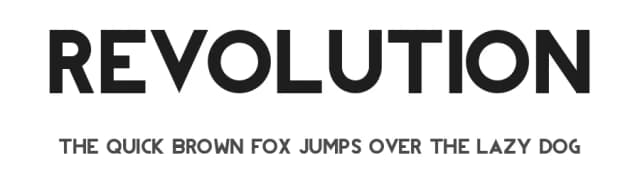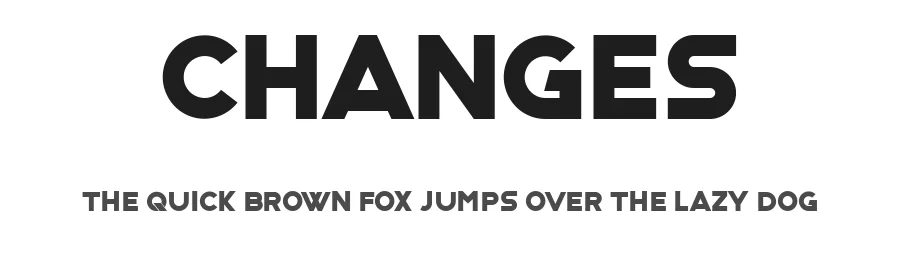
About Aday Font
| Designer | Ali Arif Rahman & Sarah Suci P |
Aday Font is a versatile sans-serif font that works for both headings and body text. Pair it with a contrasting serif or slab serif font to add visual interest and a clear distinction between titles and body copy.
Aday Font
by RaisProject